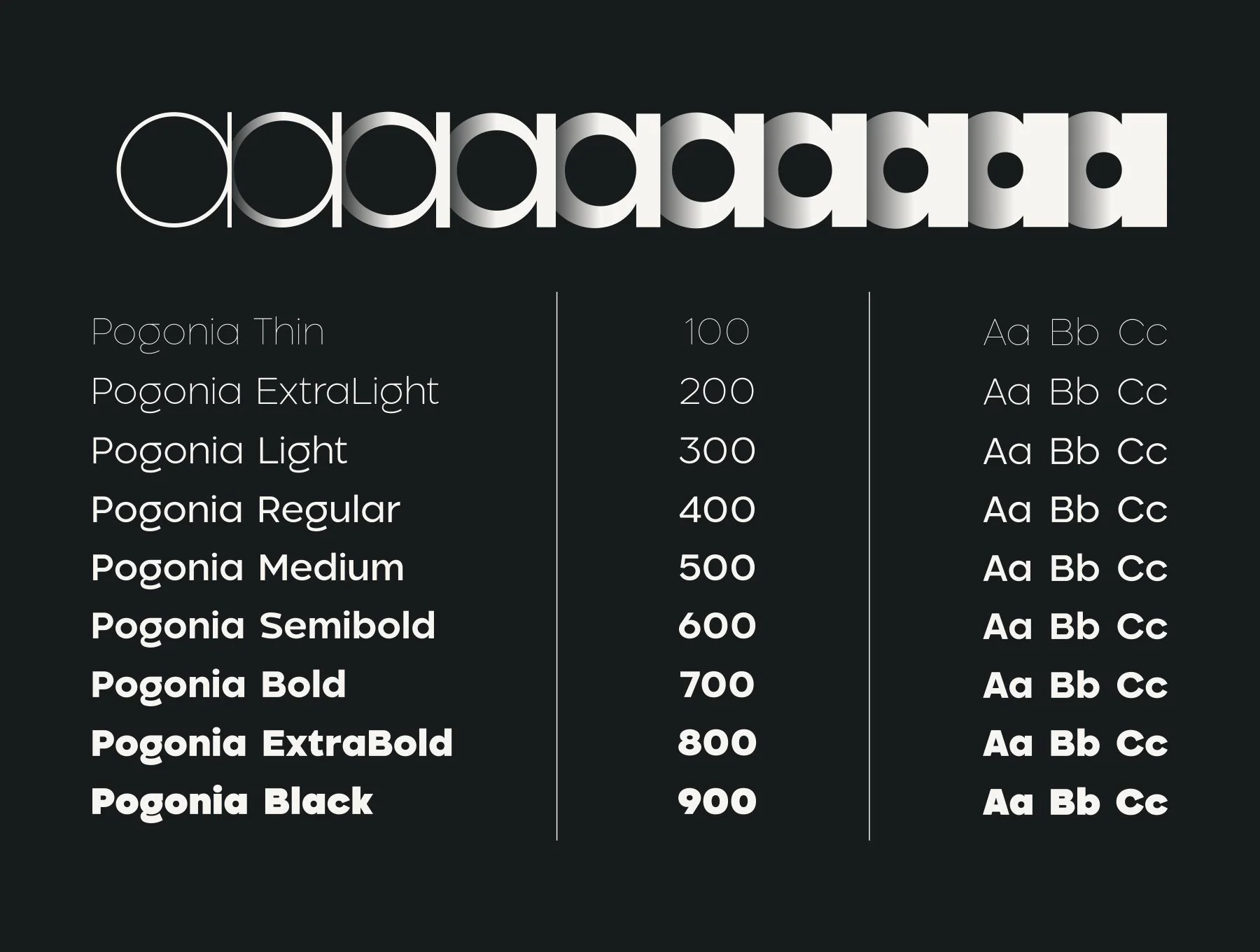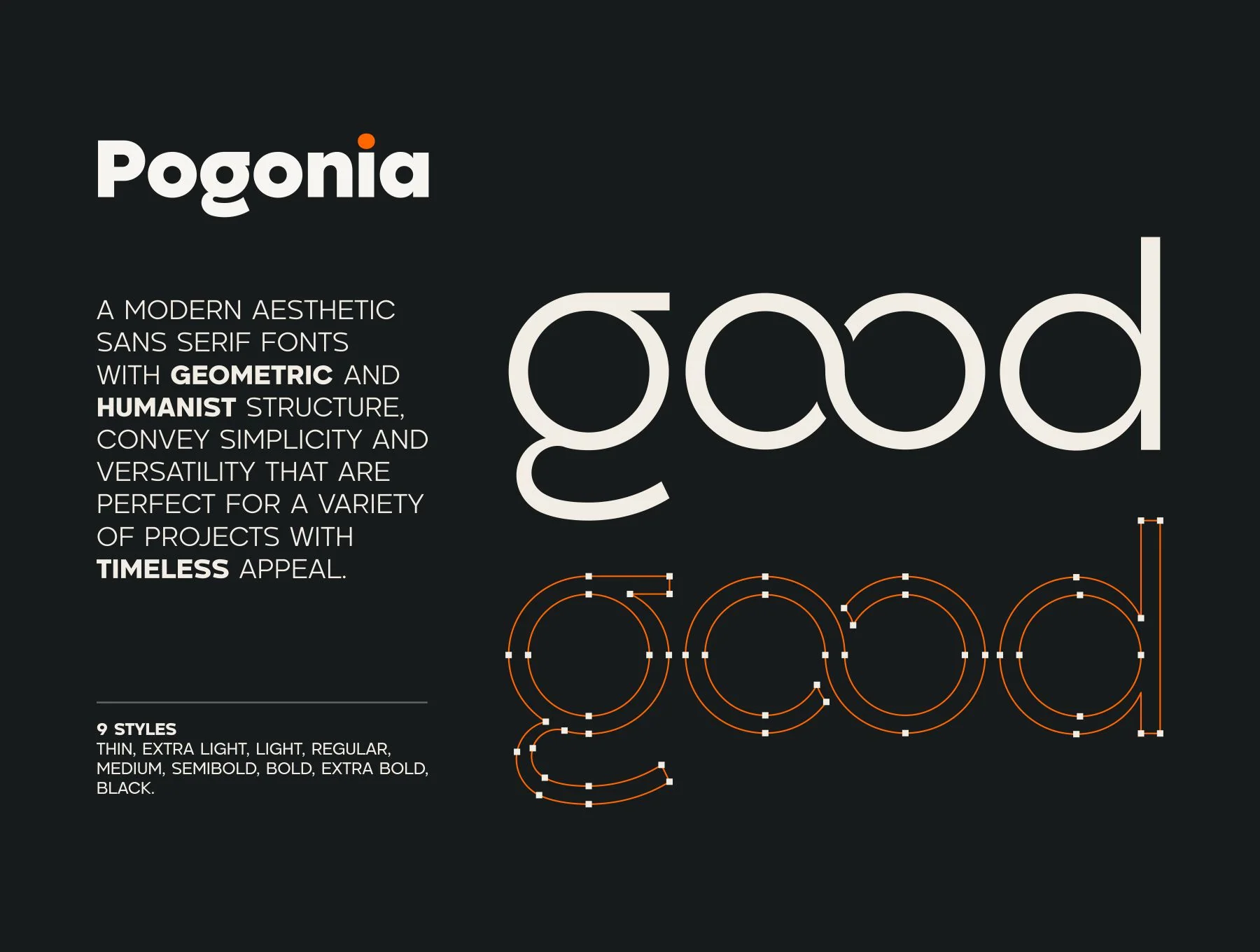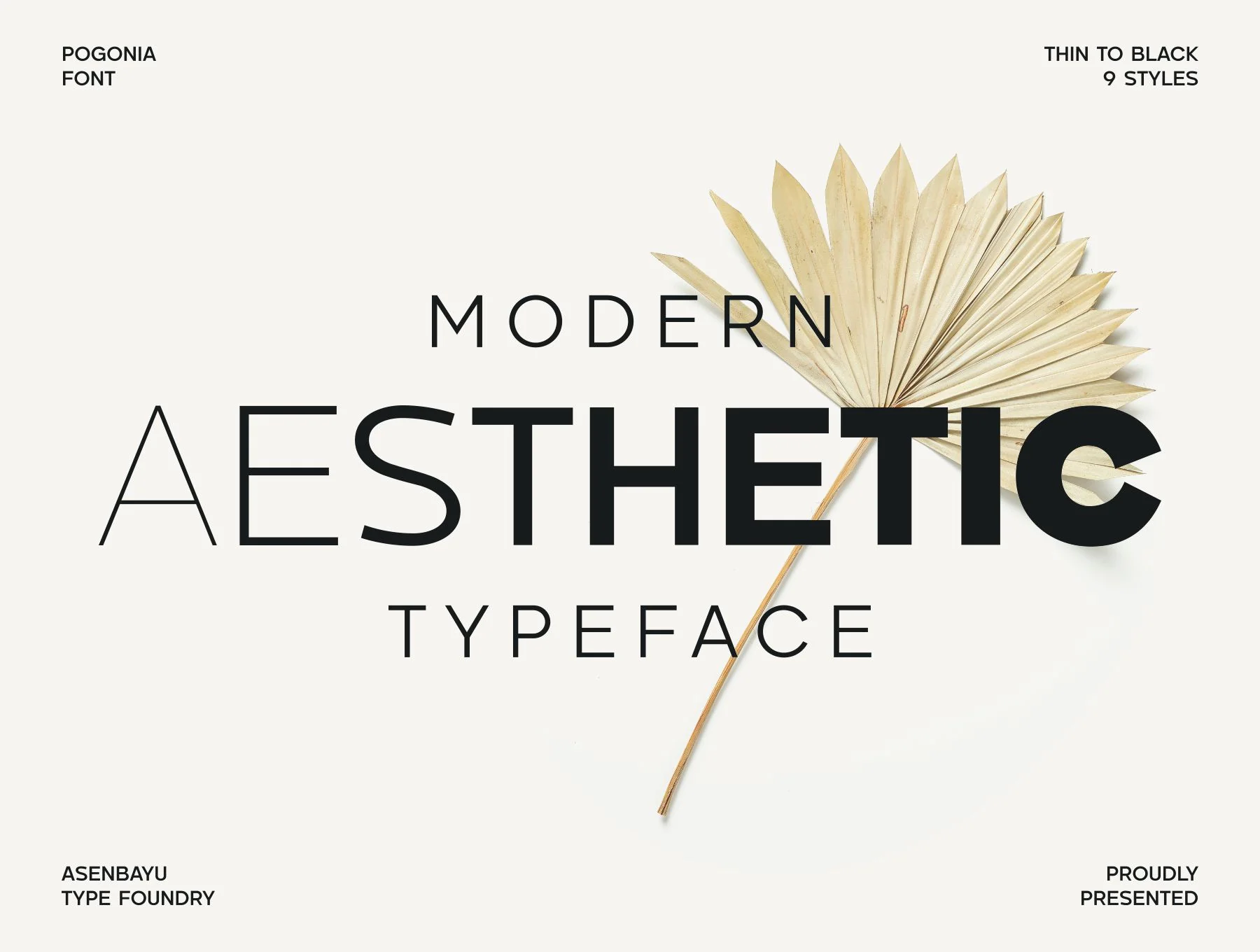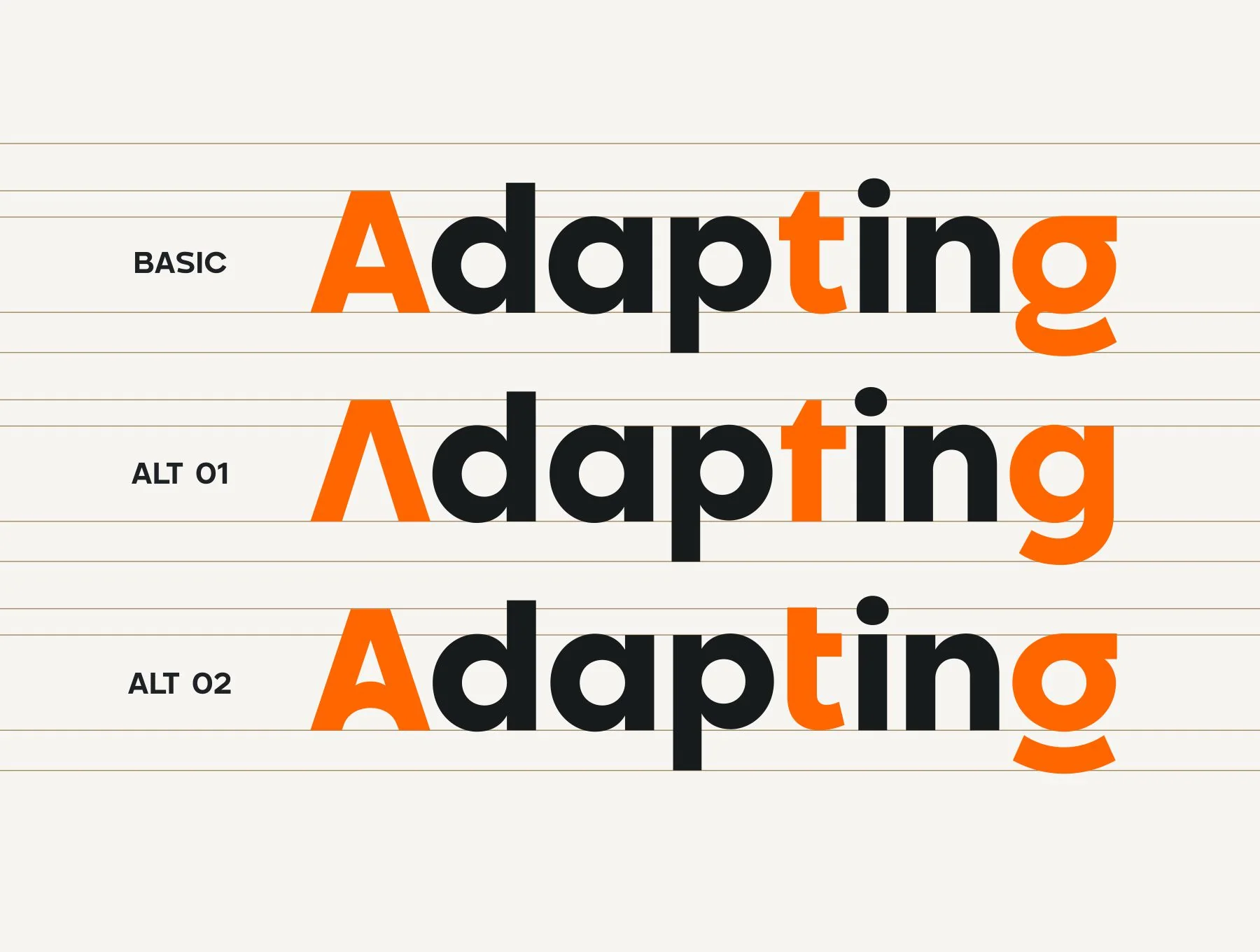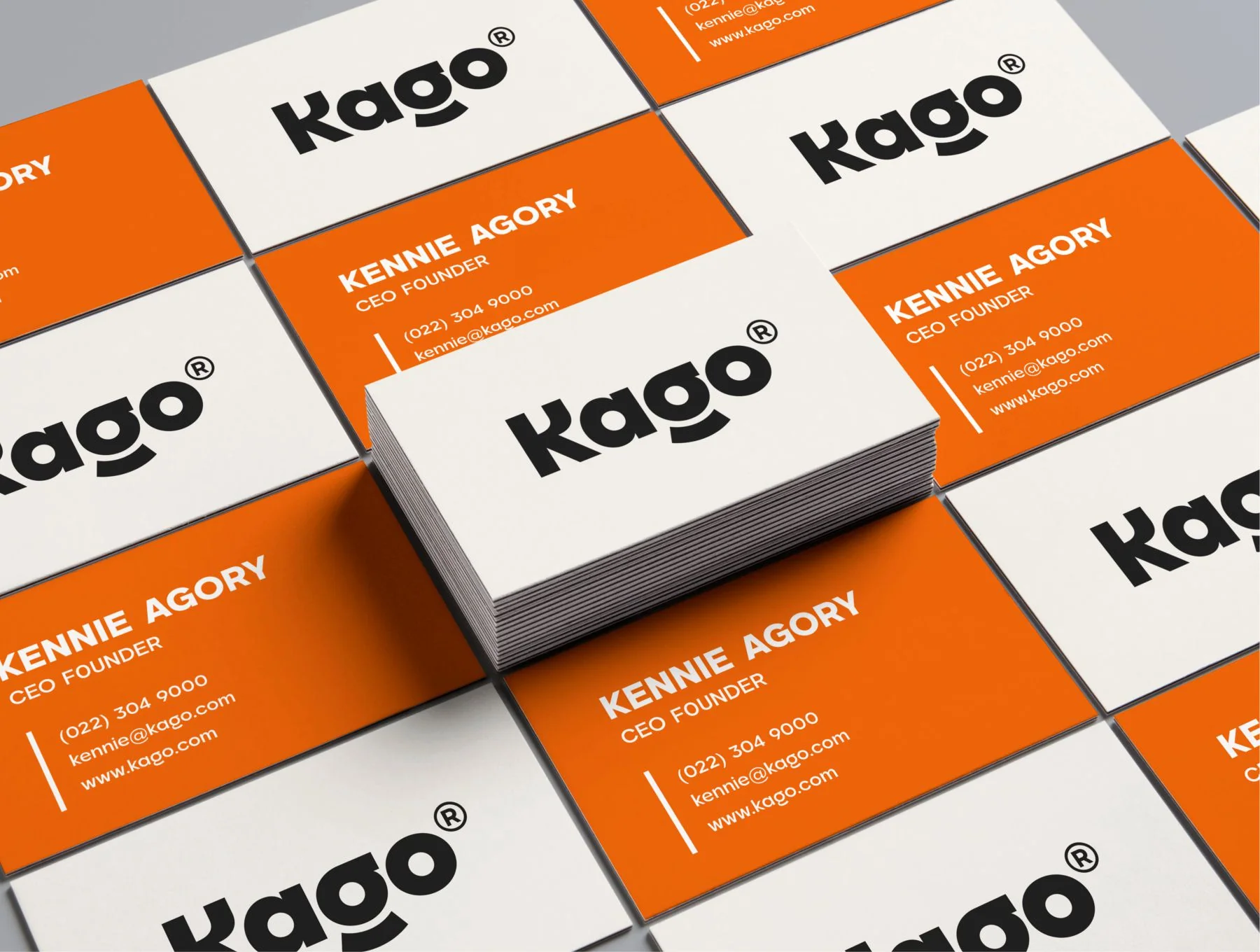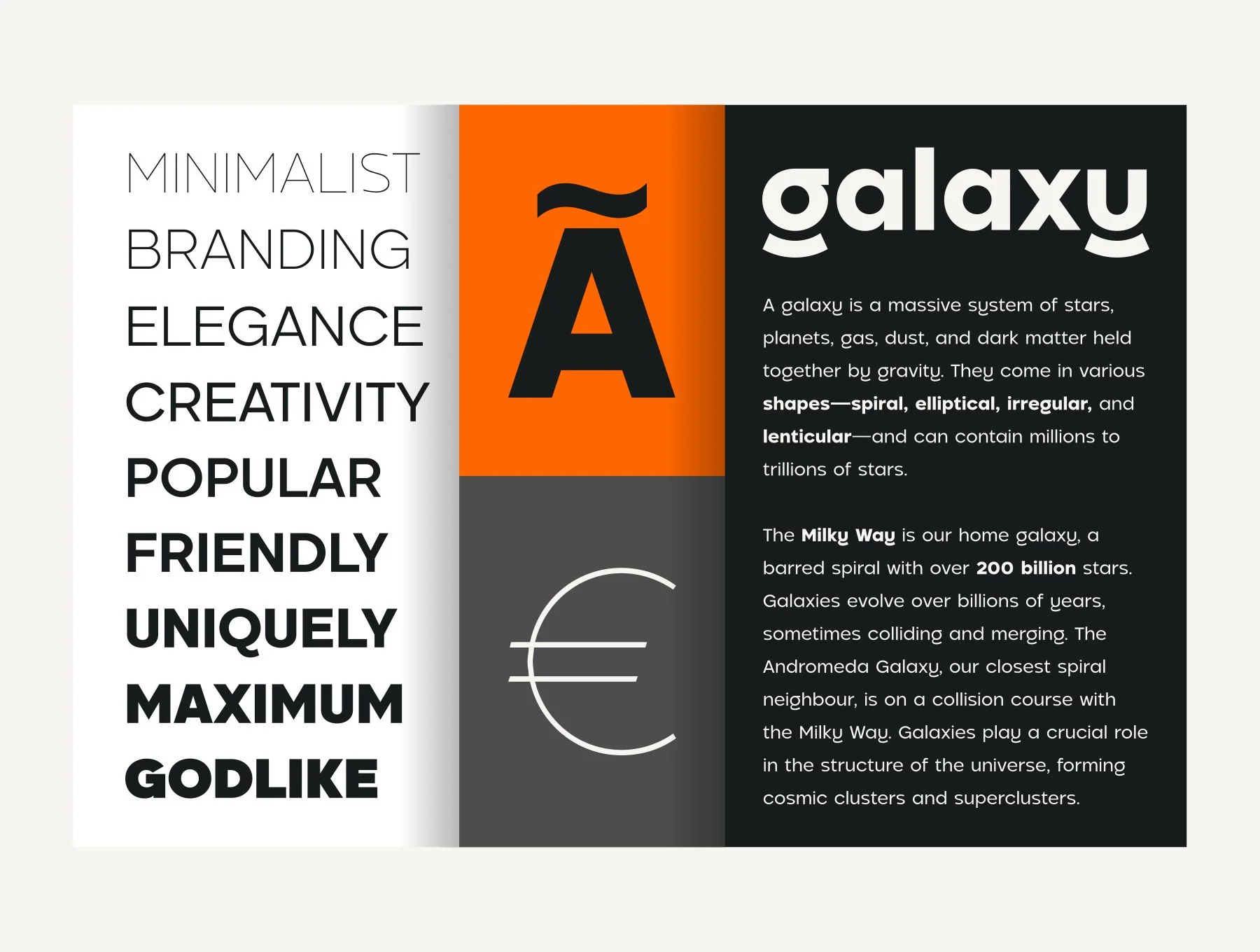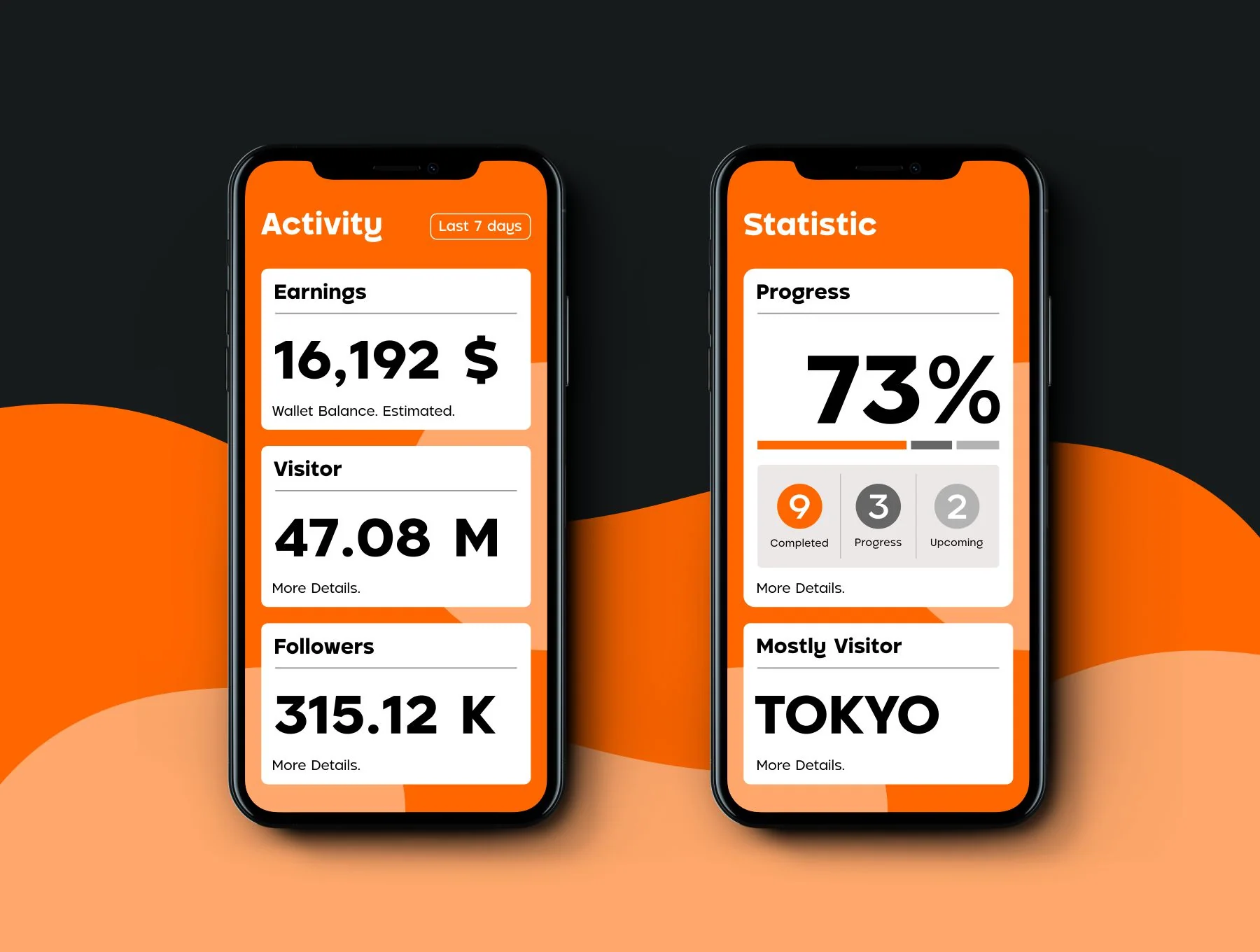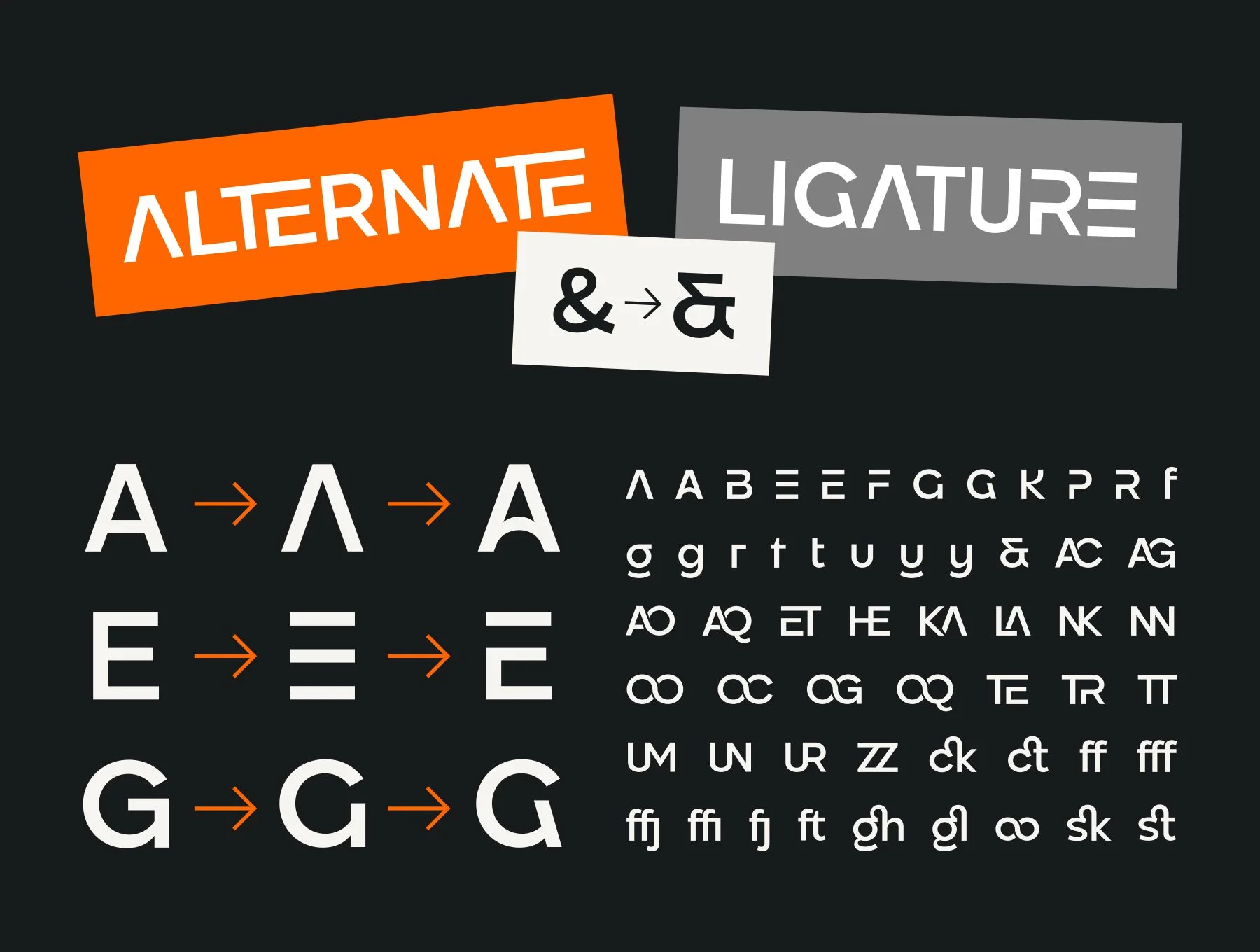
Pogonia Font Family
Contemporary Stylish Sans Serif Typefaces
Set of 9 typefaces
Basic glyph set
Decorative alternates and ligatures
Pogonia is a contemporary sans serif family blending geometric precision with humanist warmth for clean, flexible, and lasting design. Ideal for logos, posters, social media, fashion, and websites. Includes 9 weights from Thin to Black, OTF/TTF/WOFF files, standard glyphs, alternates, ligatures, symbols, punctuation, and multilingual support.